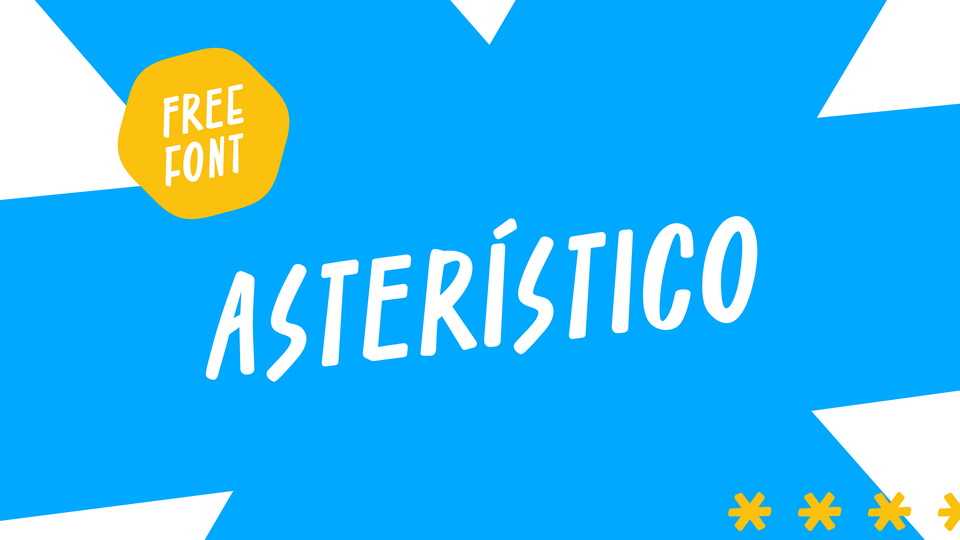
Download Asteristico font, a hand lettered typeface inspired by vernacular design. The references used for the types are the urban hand lettering sign found in the City of Curitiba-PR / Brazil.
Designer: Jonathan William Petroski